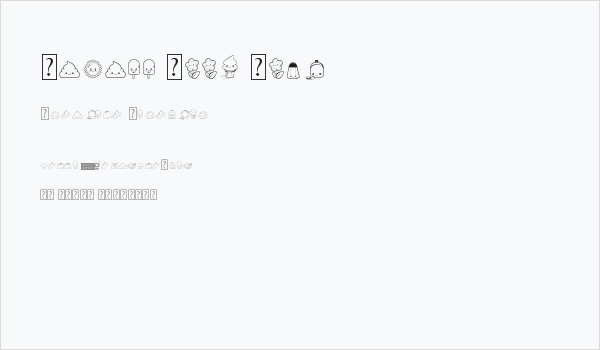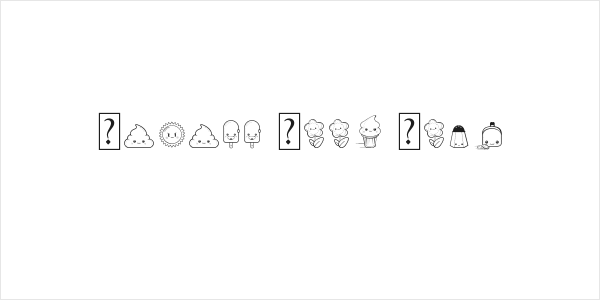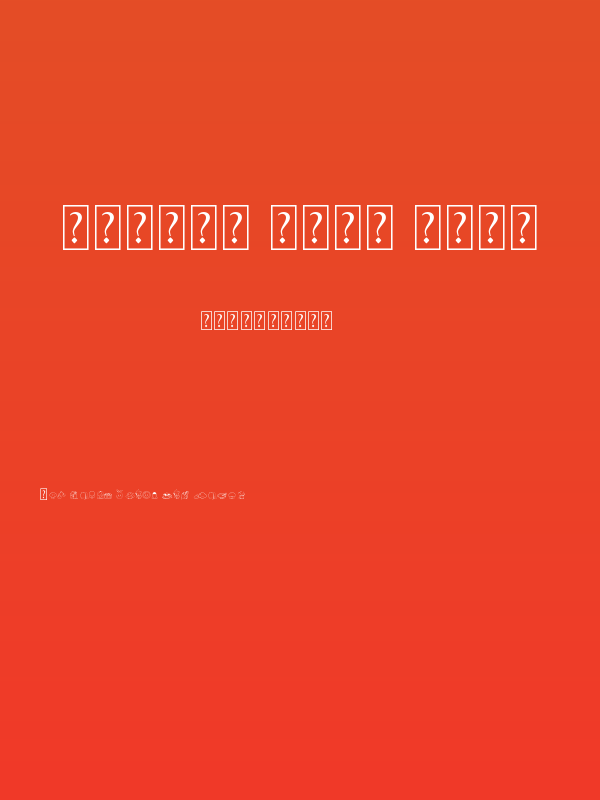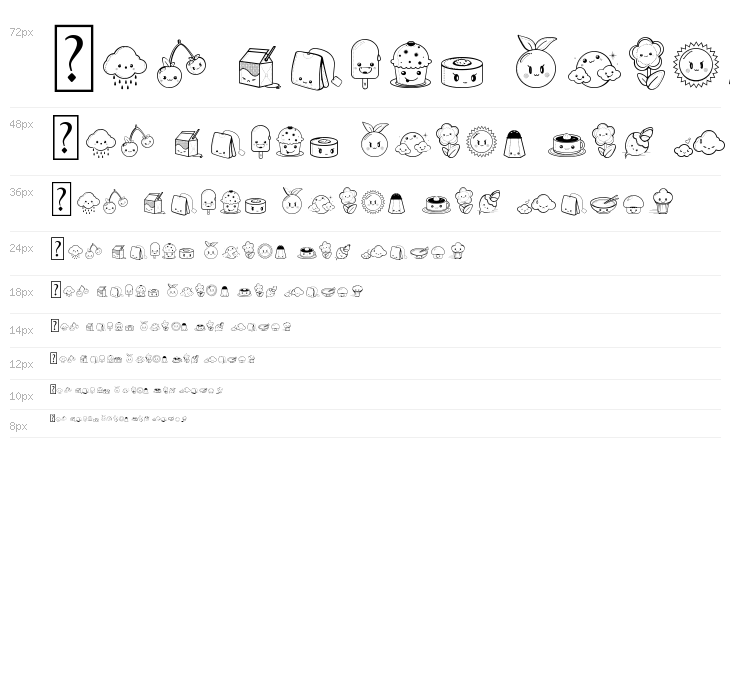
Kawaii Food Font Font
Kawaii Food Font Description
A playful decorative font featuring kawaii-style food illustrations as characters, each with cute facial expressions and simple line art. The glyphs are highly stylized and do not follow traditional letterforms, focusing instead on charming, cartoon-like food items.
| Overall Style | Decorative, Playful, Cute |
| Use Case | Logos, Headlines, Themed graphics, ChildrenΓ’β¬β’s materials |
| Proposed Projects | ChildrenΓ’β¬β’s books, party invitations, stickers, greeting cards, playful branding, educational materials. |